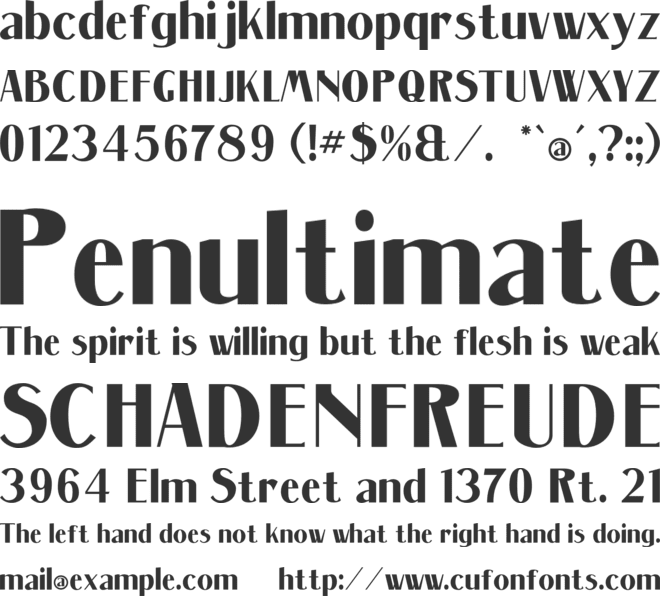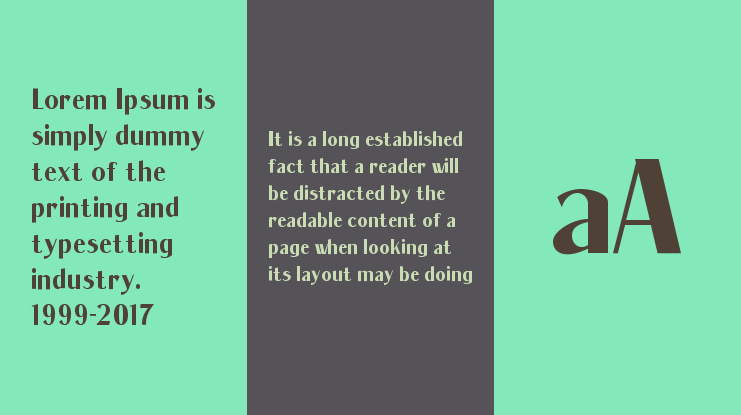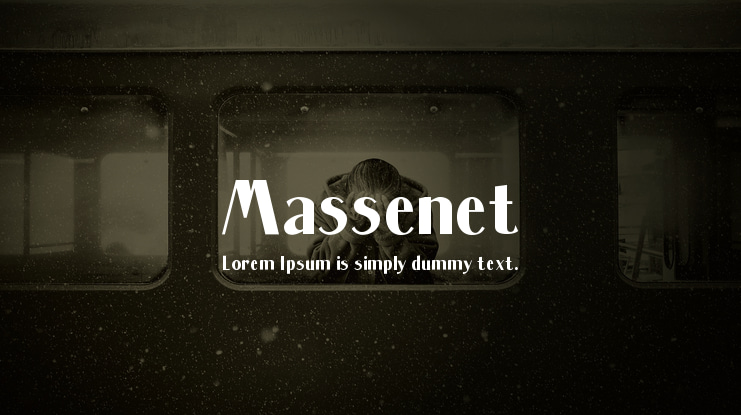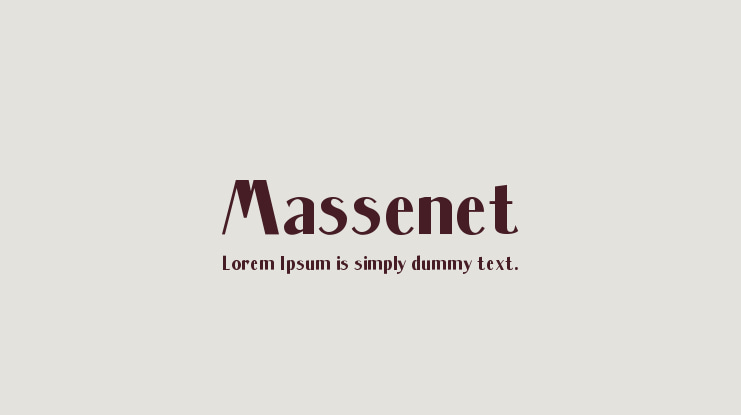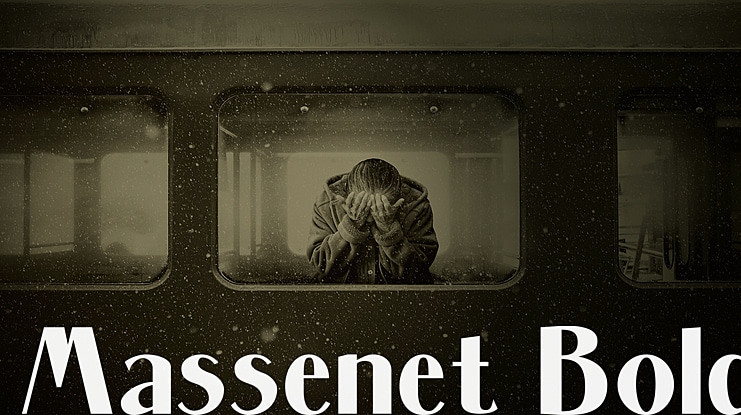
Massenet is my revival, completely redrawn, of Old Style Grotesque Condensed which I found in Specimens of Printing Type (Miller & Richard, Edinburgh, c. 1920). The book appears to be in the public domain. Massenet is a sans serif font that sports a nice combination of thick and thin strokes. I expanded the single font to three weights, SemiBold, Bold and ExtraBold. I believe it will your designs best in posters, advertisements, vintage modern (what a great oxymoron!) and card design.
Massenet exemplifies a few of the reasons Grotesques received this moniker. See the unusual N glyph with its upper right rectangle; the rather truncated G; and the awkward S.
Massenet supports Afrikaans, Albanian, Asu, Basque, Bemba, Bena, Bosnian, Catalan, Chiga, Colognian, Cornish, Croatian, Czech, Danish, Dutch, English, Estonian, Faroese, Filipino, Finnish, French, Friulian, Galician, Ganda, German, Gusii, Hungarian, Icelandic, Inari Sami, Indonesian, Irish, Italian, Jola-Fonyi, Kabuverdianu, Kalenjin, Kinyarwanda, Latvian, Lithuanian, Low German, Lower Sorbian, Luo, Luxembourgish, Luyia, Machame, Makhuwa-Meetto, Makonde, Malagasy, Malay, Maltese, Manx, Morisyen, North Ndebele, Northern Sami, Norwegian, Bokmål, Norwegian Nynorsk, Nyankole, Oromo, Polish, Portuguese, Romanian, Romansh, Rombo, Rundi, Rwa, Samburu, Sango, Sangu, Scottish Gaelic, Sena, Shambala, Shona, Slovak, Slovenian, Soga, Somali, Spanish, Swahili, Swedish, Swiss German, Taita, Teso, Turkish, Turkmen, Upper Sorbian, Vunjo, Welsh, Western Frisian, Wolof, Zulu.
Several dozen discretionary ligatures are available.
I named Massenet after the 19th century French composer of operas and splashy orchestral music, Jules Massenet (1842-1912).